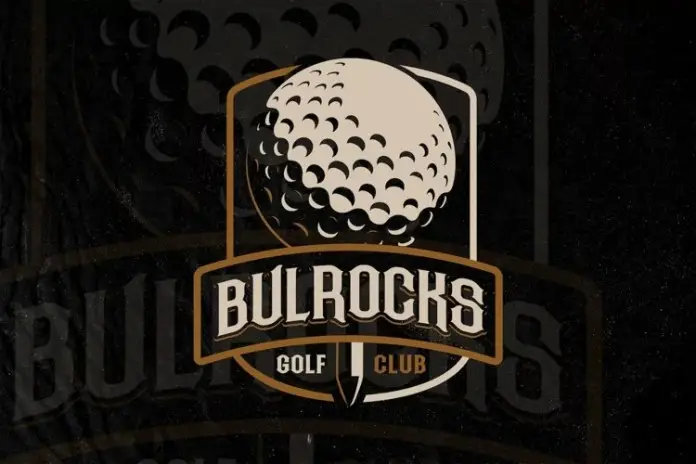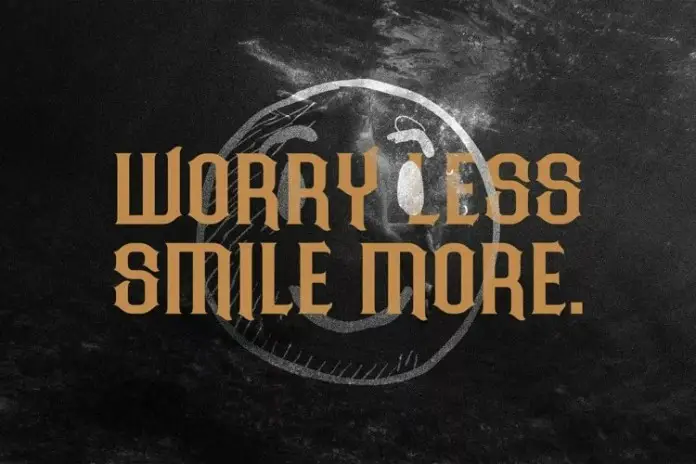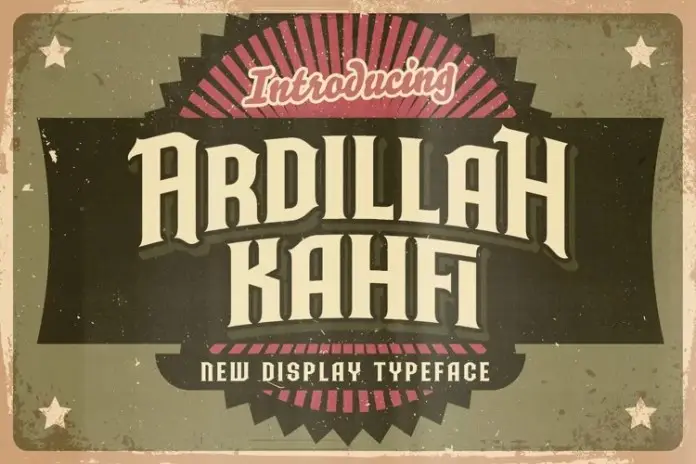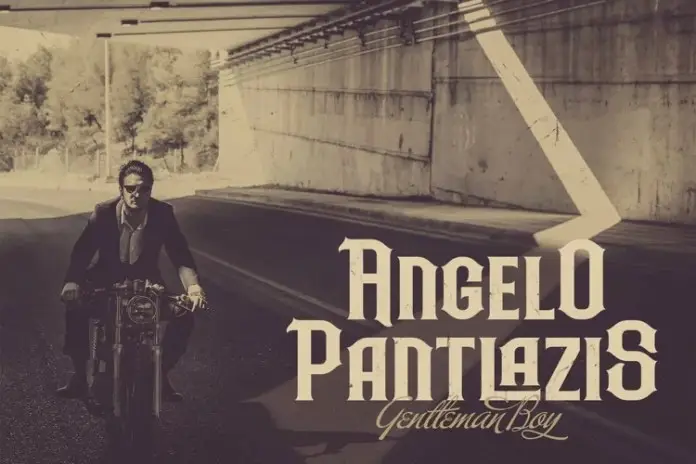
Ardillah Kafi Blackletter Font
Introducing the Ardillah Kafi Blackletter Font, a striking typeface that embodies the classic elegance of traditional blackletter styles. This font is perfect for those looking to add a touch of sophistication to their designs.
• Authentic blackletter design
• Stylish uppercase and lowercase letters
• Supports a wide range of languages
This font is ideal for branding, logos, invitations, and any project that requires a bold, traditional look. Whether you’re designing for print or digital media, Ardillah Kafi will make a memorable impact.